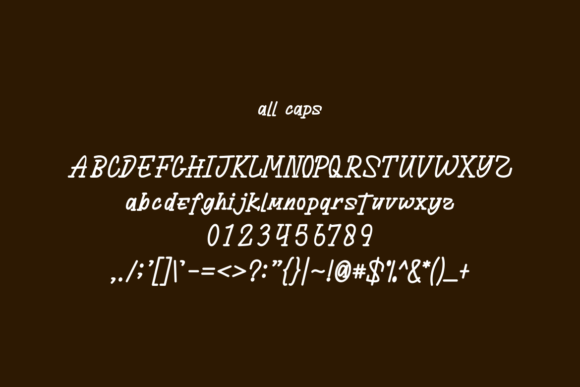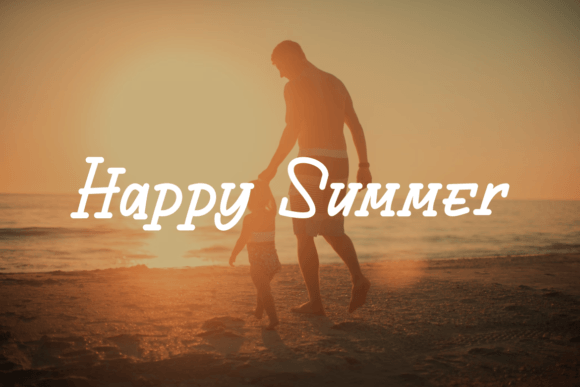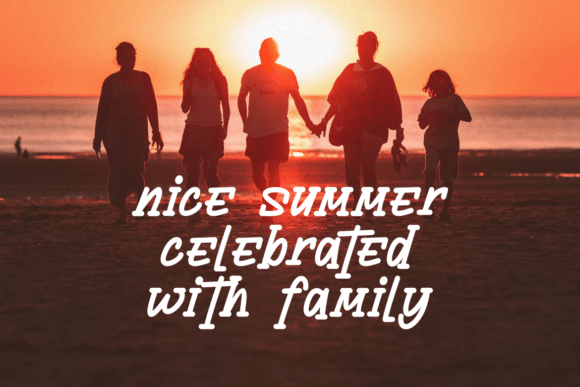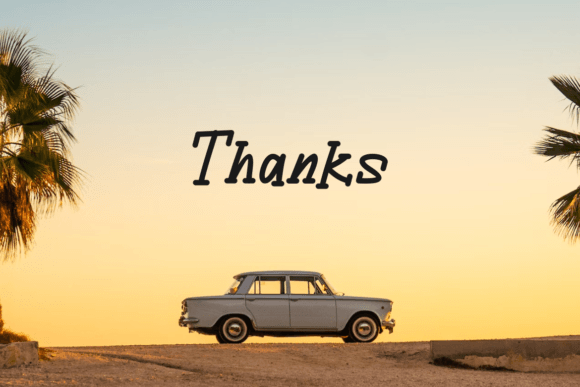
Introducing Ayhu Adhine Font: The Modern Display Font You Need
Have you ever been in the middle of a design project, and suddenly, you’re stuck on finding the perfect font? I recall a recent experience where I was working on a logo design for a trendy esport team, and I just couldn’t find a font that screamed modern and bold. That’s when I stumbled upon **Ayhu Adhine Font**, a game-changing display font that has since become a staple in my design toolkit.
Ayhu Adhine Font: The First Impression
**Ayhu Adhine Font** is a bold and authentic display font designed to make your branding projects stand out. Its modern aesthetic makes it suitable for a wide range of applications, from logos and t-shirt printing to esport designs and more. The font’s unique character set and clean lines make it perfect for designers, crafters, and creative hobbyists looking to elevate their visual projects.
• ✨ Unique Character Set: Ayhu Adhine Font comes with a wide range of characters, making it versatile for various design projects.
• ✅ Ease of Use: The font is easy to read and works well in both digital and print formats.
• 💡 Innovative Design: The font’s modern aesthetic is perfect for creating eye-catching designs that demand attention.
⚠️ While Ayhu Adhine Font is incredibly versatile, there are a few things to keep in mind. For instance, its bold nature might not be suitable for body text or smaller font sizes. Additionally, some users might find the font’s uniqueness a bit challenging to pair with other fonts.
🤔 One thing to note is that the font’s OpenType features might not work seamlessly across all platforms or software. However, with a little creativity and experimentation, you can still achieve stunning results.
The creation of Ayhu Adhine Font was inspired by the need for a modern and bold display font that could cater to various design projects. The designer aimed to craft a font that was not only visually appealing but also highly versatile. Through a combination of innovative design principles and a deep understanding of typography, Ayhu Adhine Font was born.
Q: What makes Ayhu Adhine Font unique?
A: Ayhu Adhine Font boasts a unique character set and modern aesthetic, making it stand out from other display fonts.
Q: Does Ayhu Adhine Font support OpenType features?
A: Yes, Ayhu Adhine Font supports OpenType features, including glyphs, stylistic alternates, and ligatures.